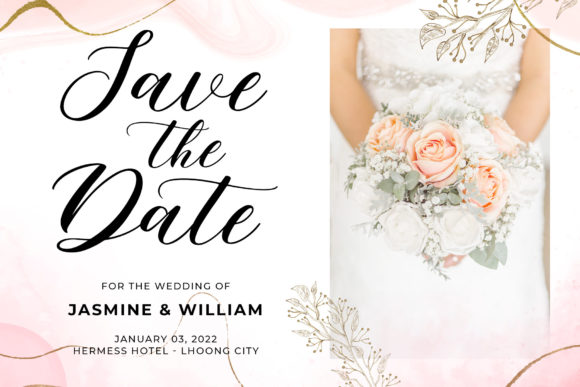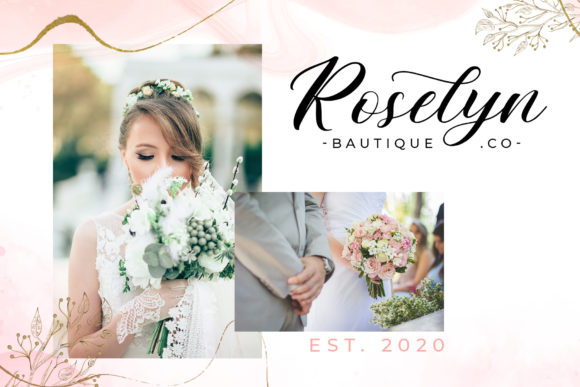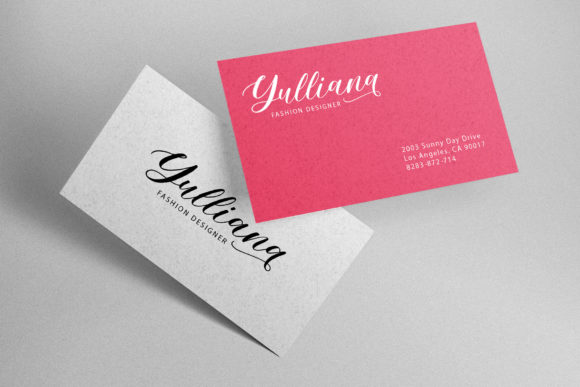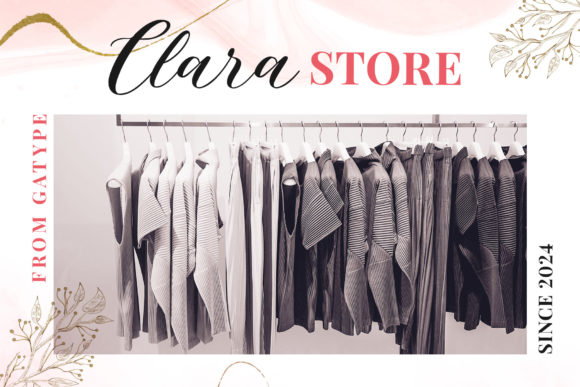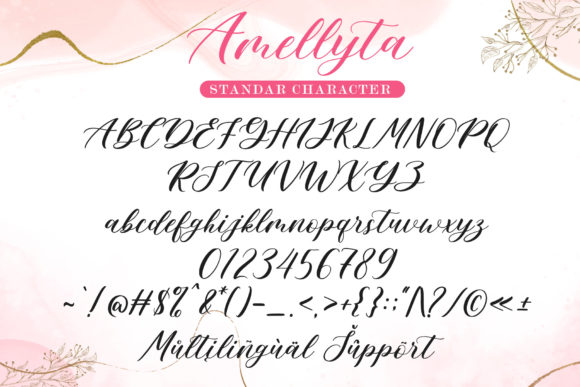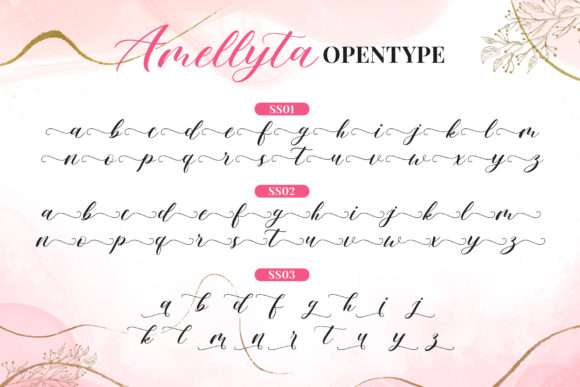
The Amellyta Font: A Modern Calligraphy Design for Creative Projects
I’ll never forget the time I was working on a wedding invitation project, and my client asked for a font that was elegant, beautiful, and unique. I scoured the internet, tried countless fonts, but nothing seemed quite right. That was until I stumbled upon the Amellyta Script font. It was love at first sight! 💕
The Amellyta Script font is a modern calligraphy design that has become a staple in my design toolkit. Its elegant strokes and beautiful curves make it perfect for a wide range of creative projects, from logos and product packaging to wedding invitations and branding.
An Honest Review of Amellyta Script
• ✨ Elegant and beautiful strokes that add a touch of sophistication to any design
• ✅ Wide range of uses, from logos and branding to wedding invitations and product packaging
• 🎉 Encoded with PUA Unicode, allowing full access to all additional characters without special software
While the Amellyta Script font is an excellent choice for many projects, there are a few things to keep in mind:
• ⚠️ Some users may find the font a bit too ornate for certain designs
• 🤔 Limited use for body text, as it’s best suited for headlines and titles
The Backstory of Amellyta Script
The Amellyta Script font was designed with the goal of creating a modern, elegant calligraphy font that could be used for a wide range of creative projects. The designer drew inspiration from traditional calligraphy and modern typography to create a unique and beautiful font.